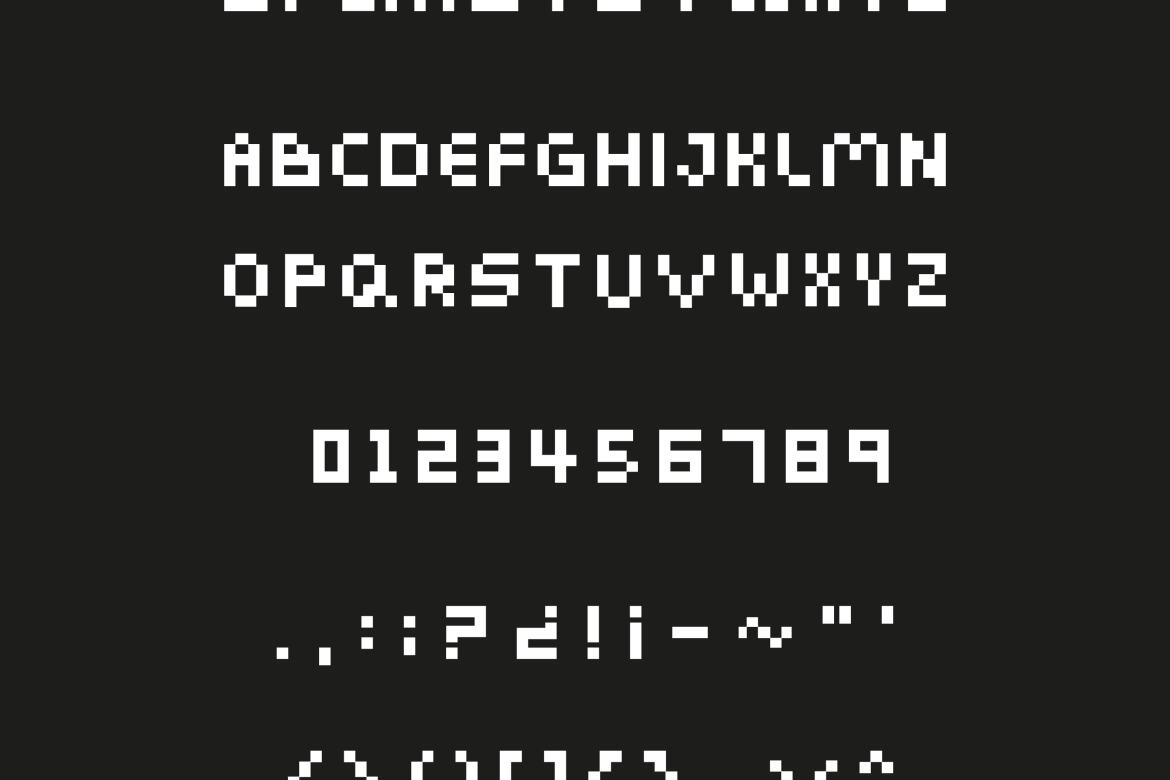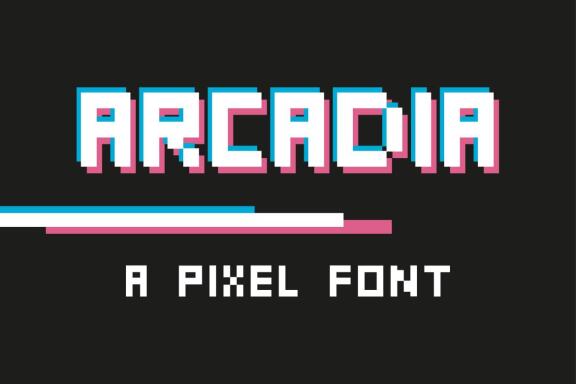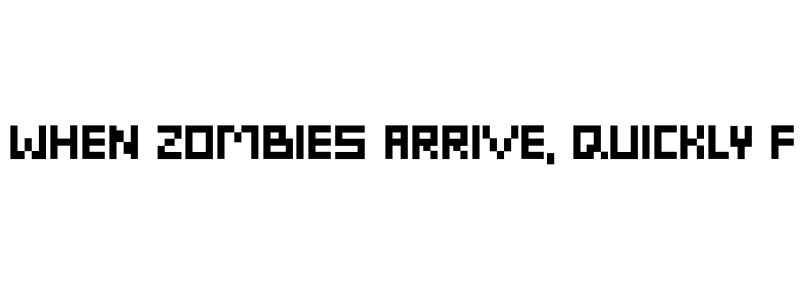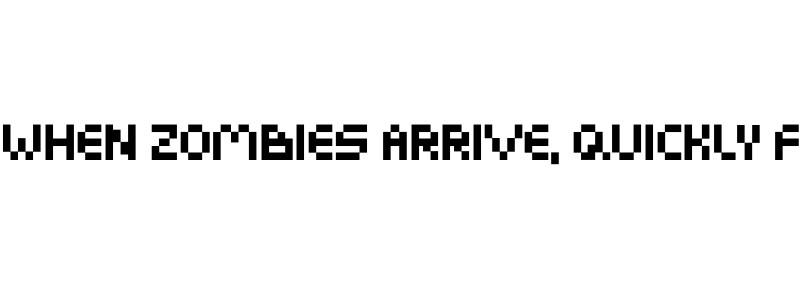
Arcadia FREE Pixel Font
Arcadia Blocky preview
Arcadia Blocky
Arcadia Pixelated
A blocky, pixel-font inspired by retro and pixel-style games. Blockier letters are uppercase, more pixelated letters are lowercase.
• create a retro game feel with this font
• unique and bold look